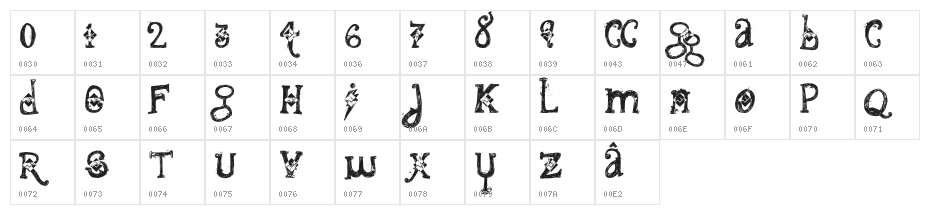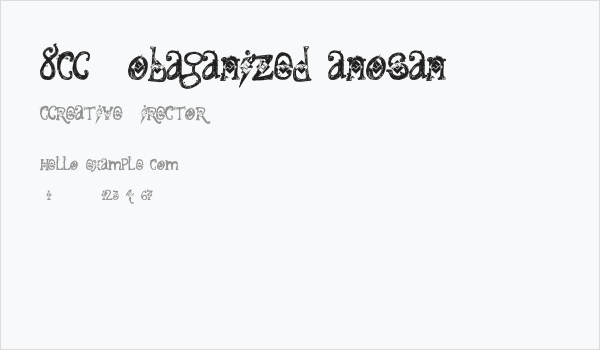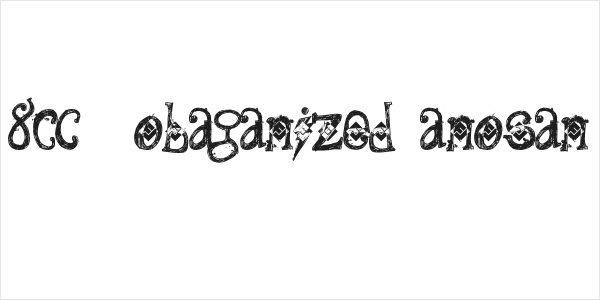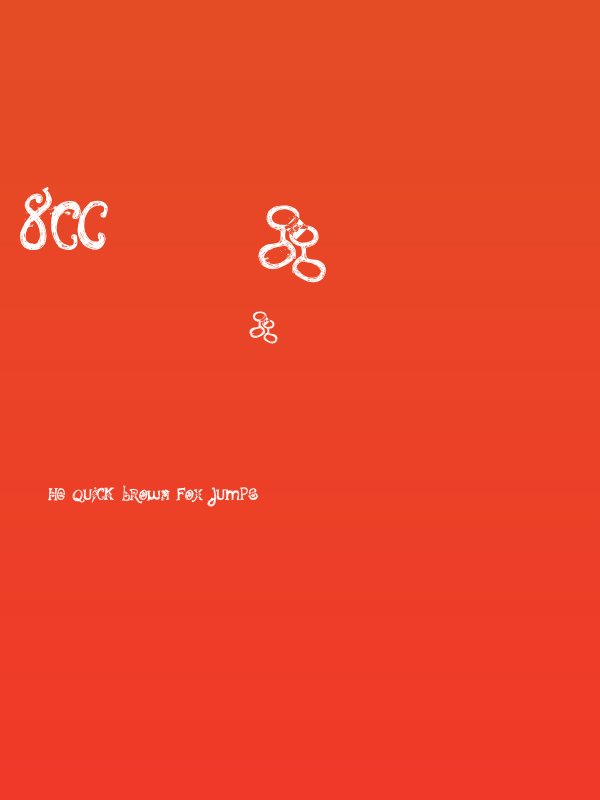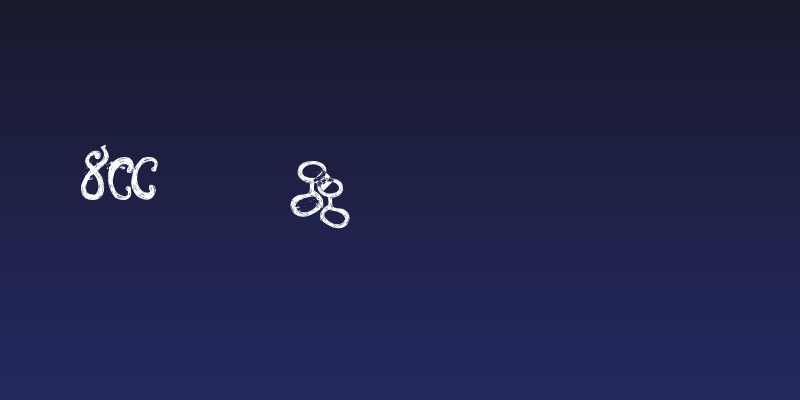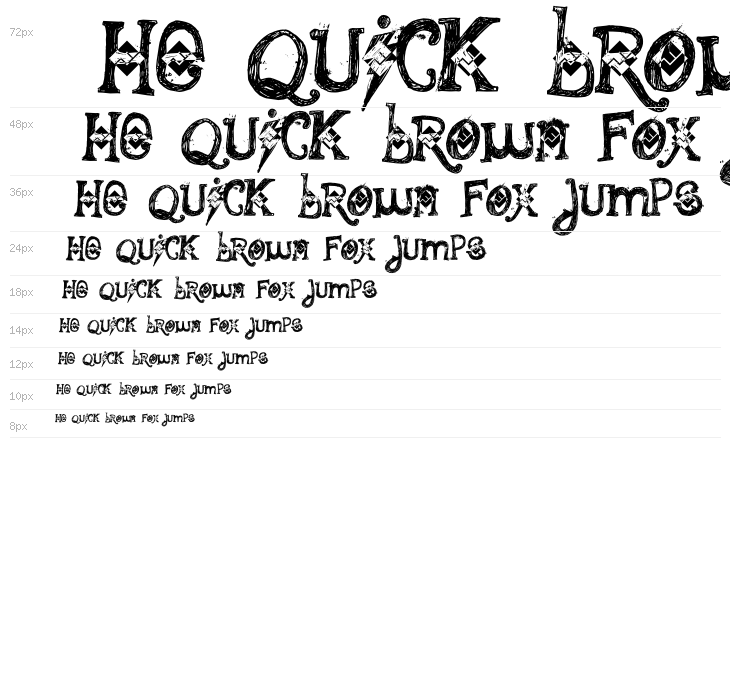
8C-DobaganizedRanosan Font
8C-DobaganizedRanosan Description
This font features a bold, distressed style with a grunge aesthetic. Each character is uniquely textured, giving it a rough, hand-drawn appearance. The letters are embellished with lightning bolt motifs and irregular edges, adding to its edgy and rebellious feel. The font is highly decorative, making it stand out with its artistic flair. It combines elements of both modern and vintage styles, offering a unique blend that is visually striking. The numbers and special characters maintain the same distressed and bold characteristics, ensuring consistency across all glyphs.
| Overall Style | Grunge, Rebellious, Artistic |
| Proposed Projects | Ideal for music album covers, posters, branding for edgy or alternative products, and any design requiring a bold statement. |